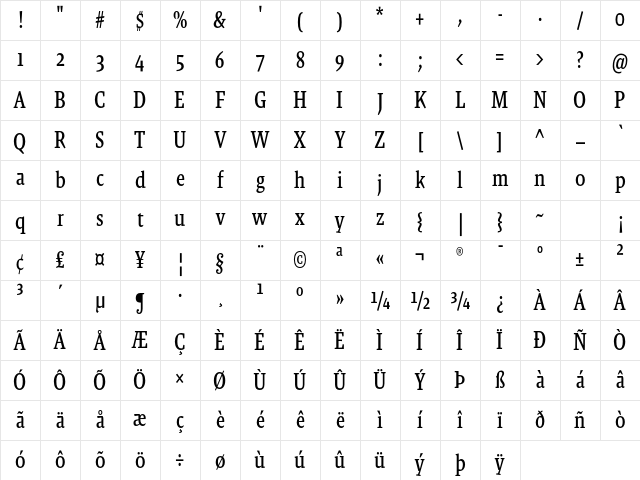
Malaga Narrow OT Reg Free Font
Malaga Narrow OT Reg
Style: Reg
Foundry: Emigre Inc.
Designer: Xavier Dupre
Design Context for Malaga Narrow OT
Malaga Narrow OT is a composed and adaptable typeface that performs quietly and consistently across a wide range of design contexts. Its narrow stance lets it pack a punch even in space-constrained designs.